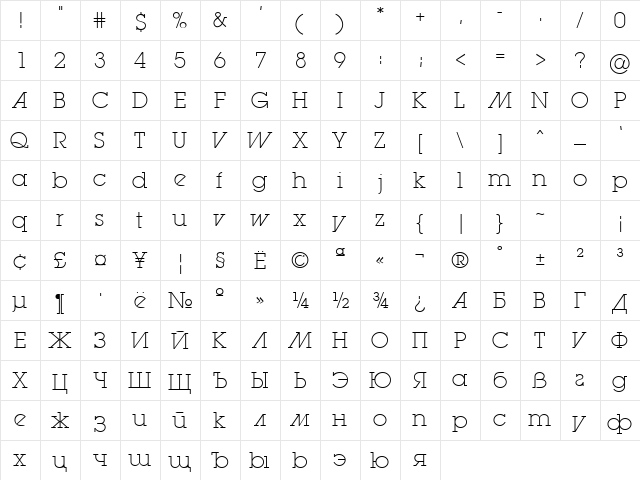
LugaExtraAd ExtraLight Font Preview
LugaExtraAd ExtraLight
Design Context for LugaExtraAd Typeface
LugaExtraAd offers clean, dependable letterforms without strong stylistic allegiance, making it a practical choice for designers who need flexibility. Its slender proportions lend an understated elegance to any composition.